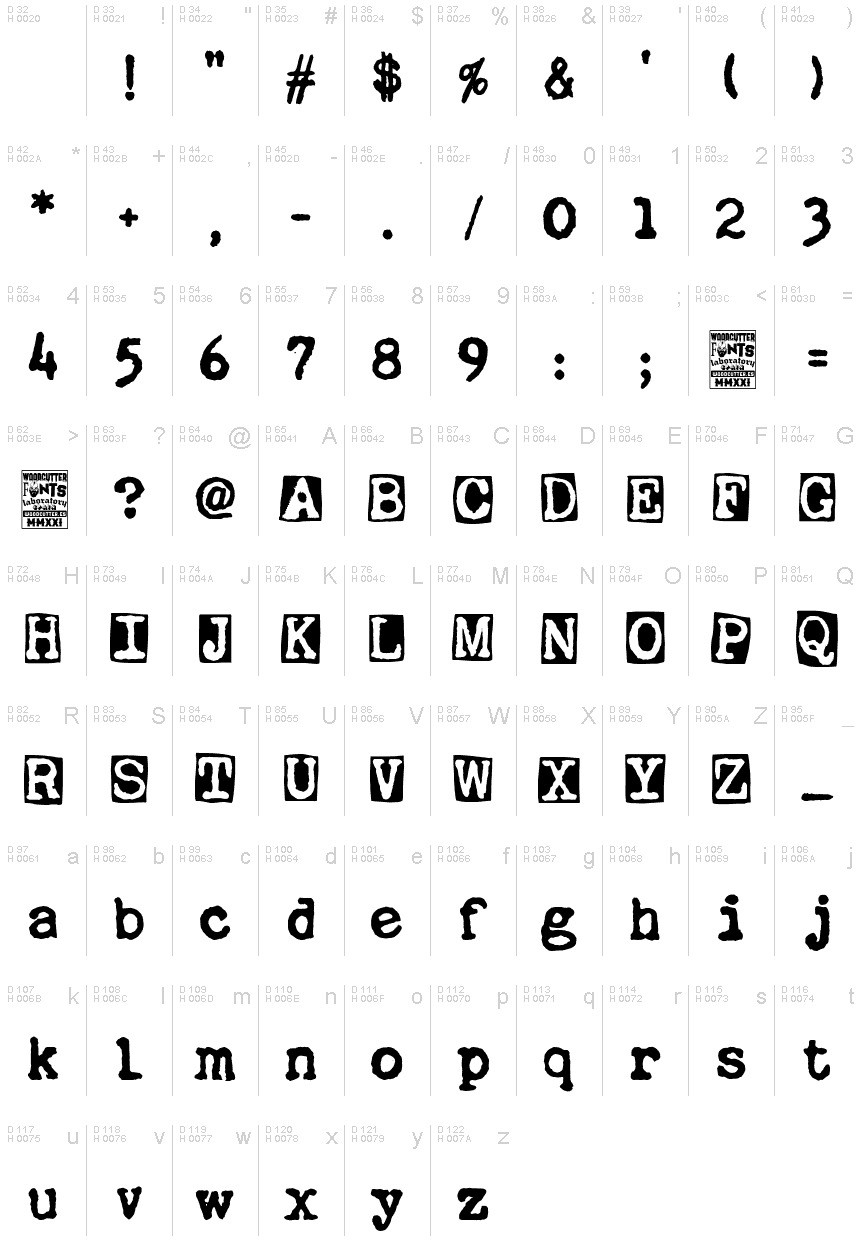
La Machine Company
La Machine Company is a rugged display font designed by Woodcutter. Its eroded style adds a touch of grit and authenticity to your designs, perfect for projects that require a vintage or industrial feel. Whether you're creating signage for a hip cafe or designing merchandise for an edgy band, La Machine Company's semi-bold typeface and wide character spacing make it stand out from the crowd. Use it on posters, album covers, t-shirts, and more. Make your projects look like they were printed on aged paper with La Machine Company - the font that adds character to any design.